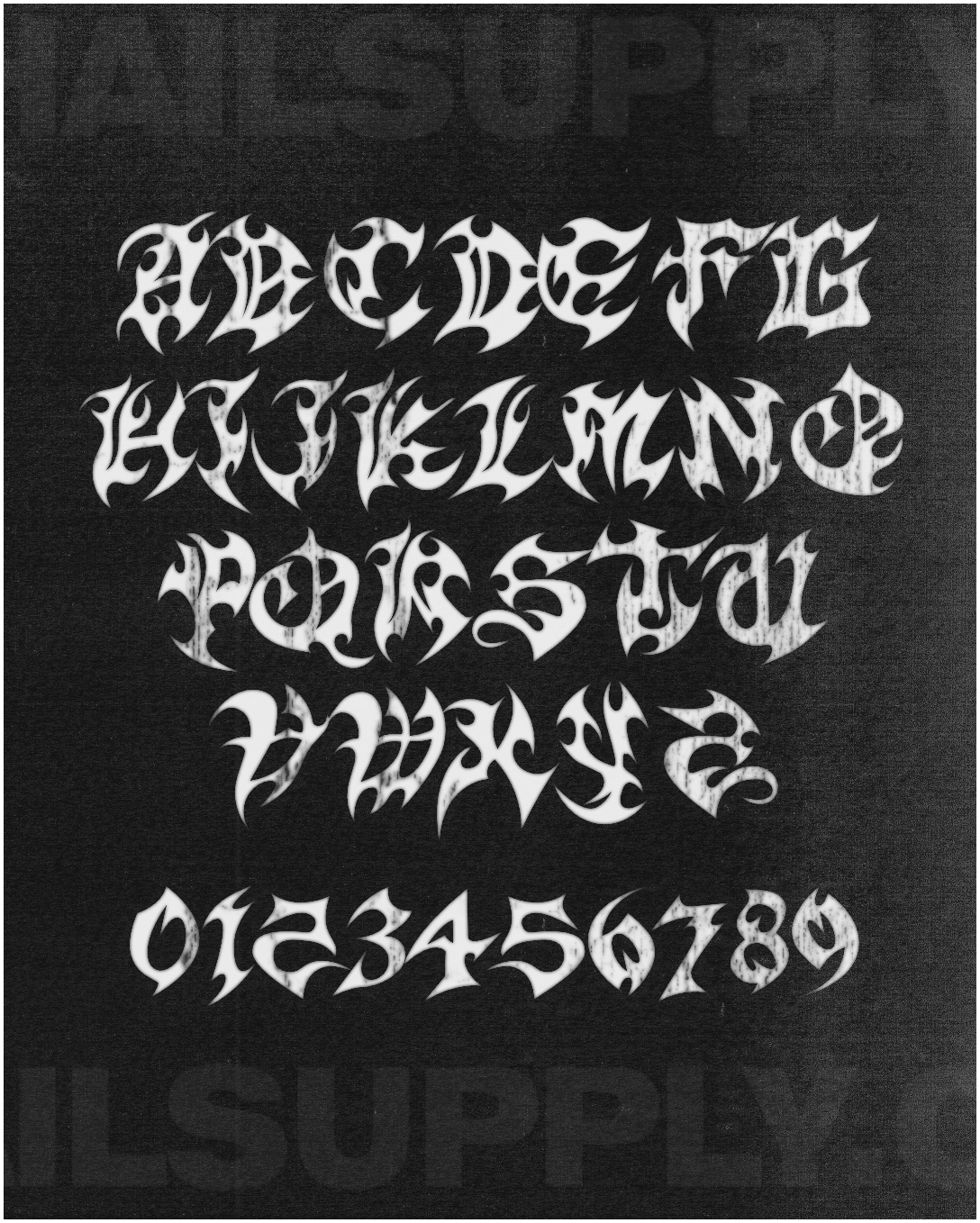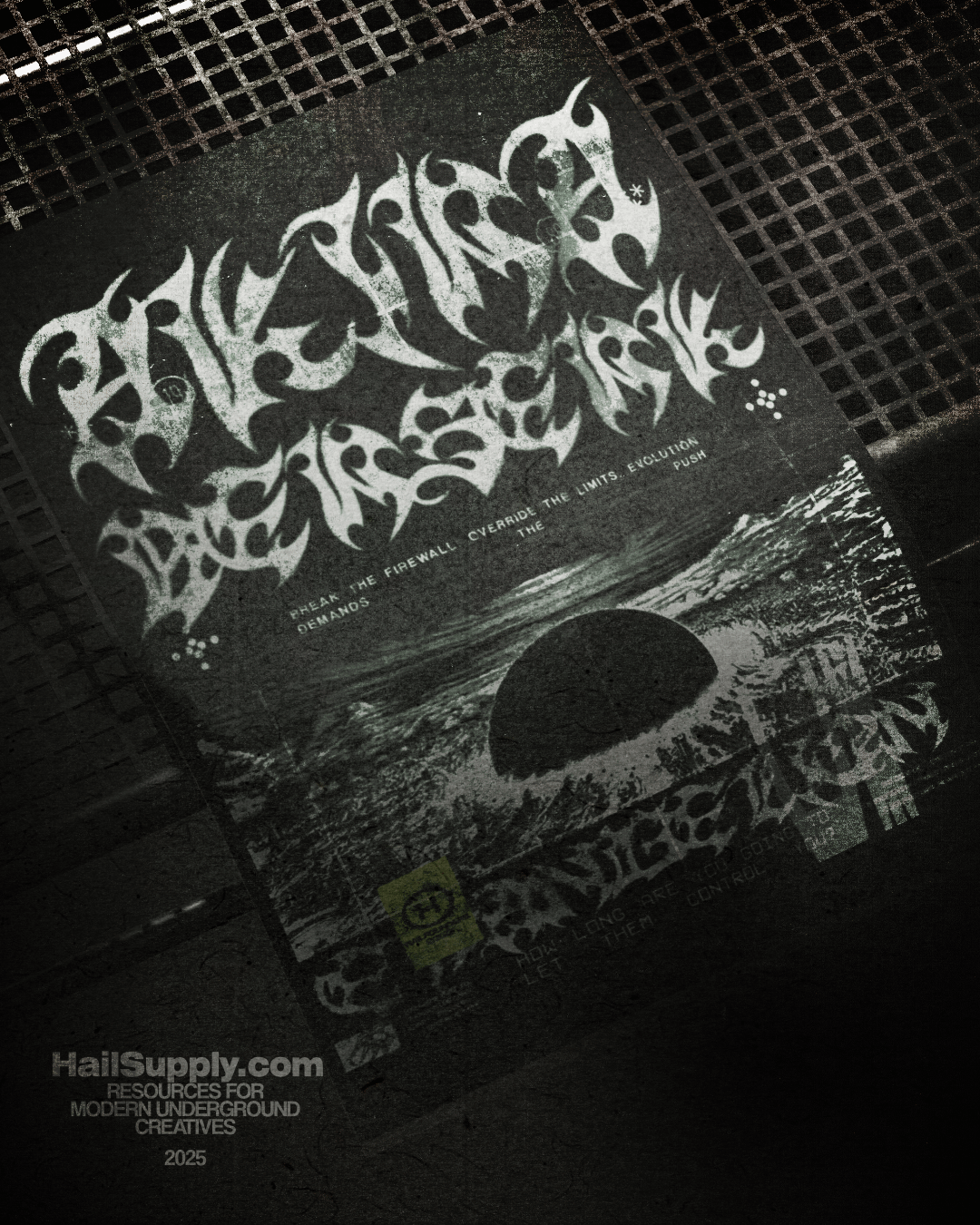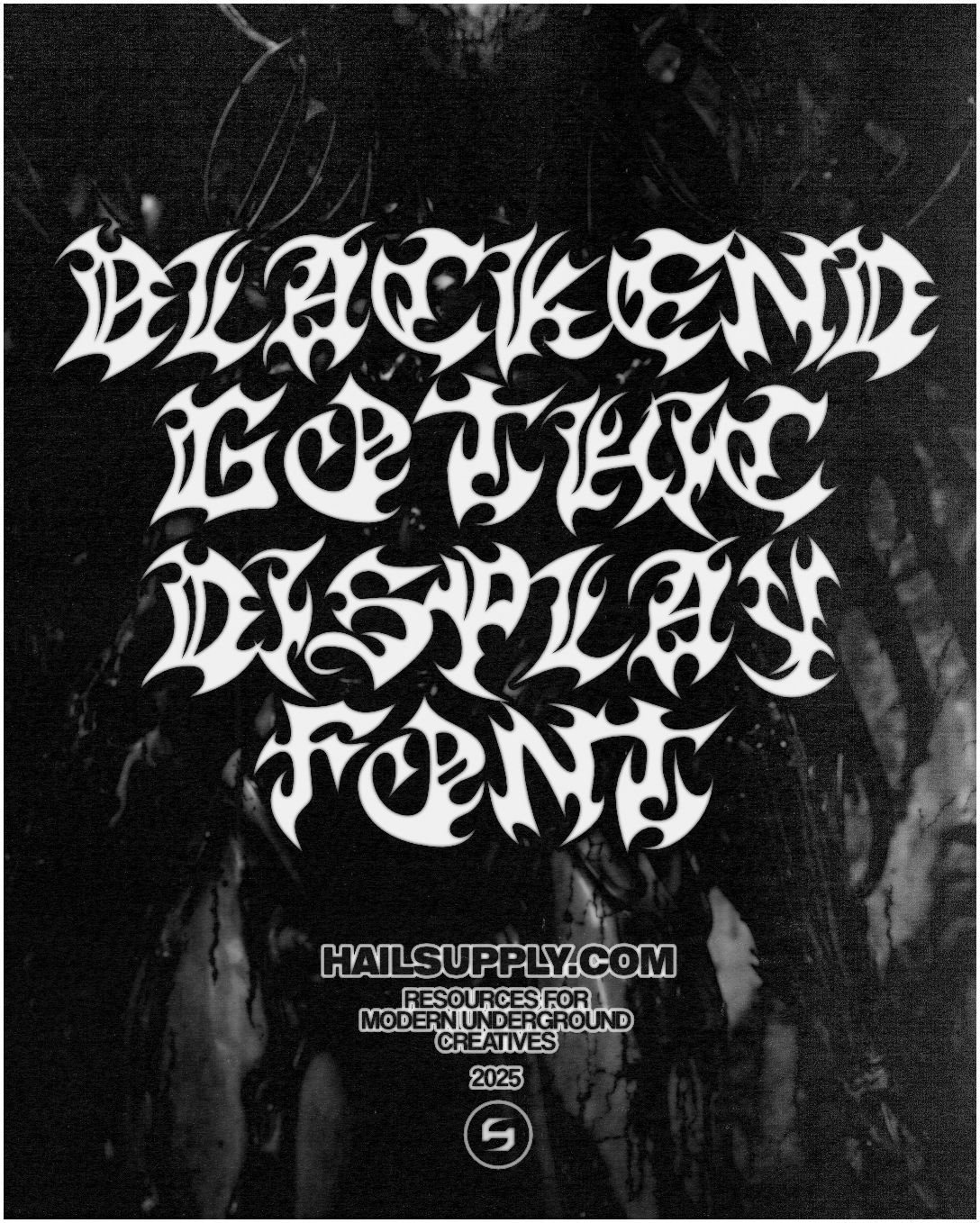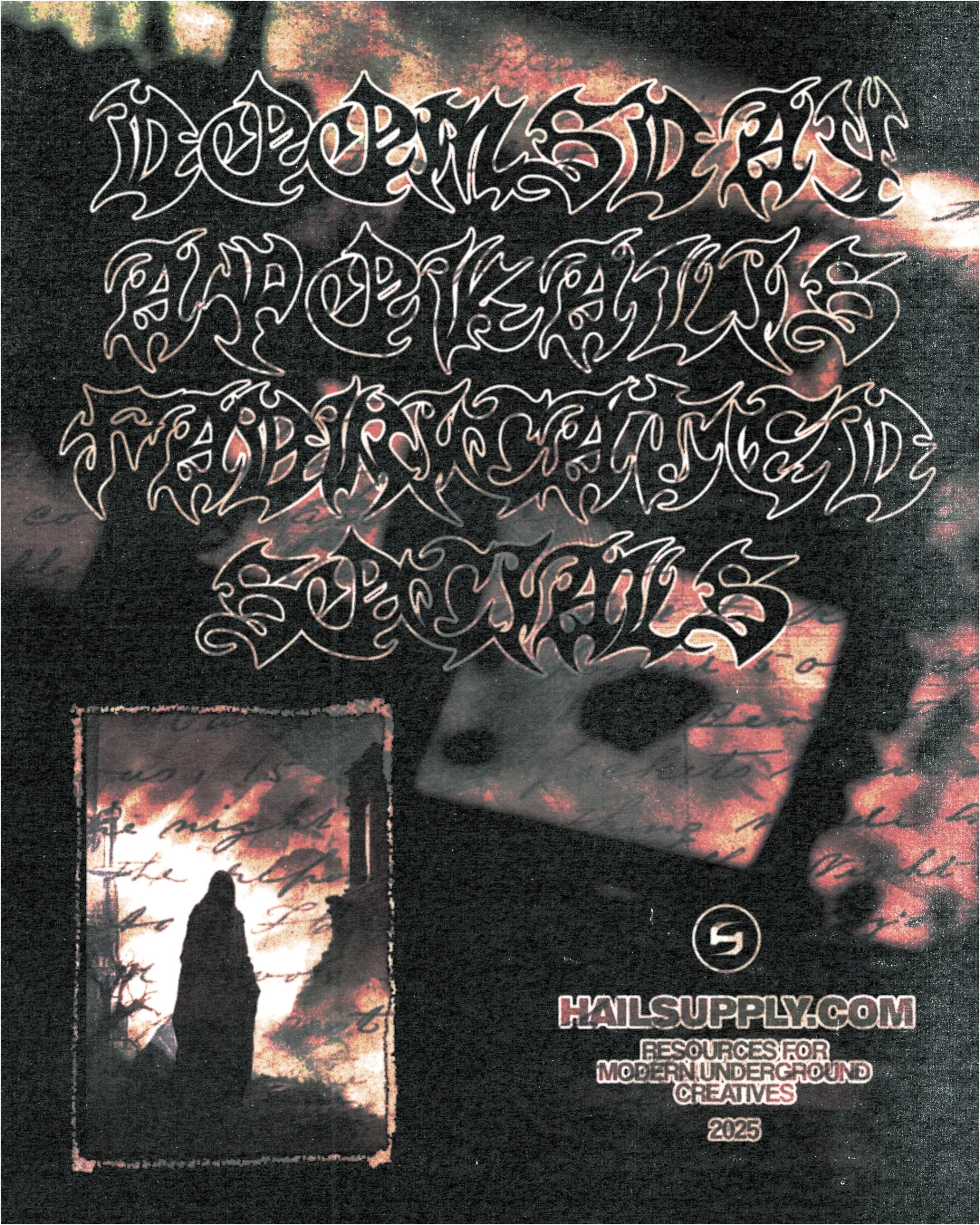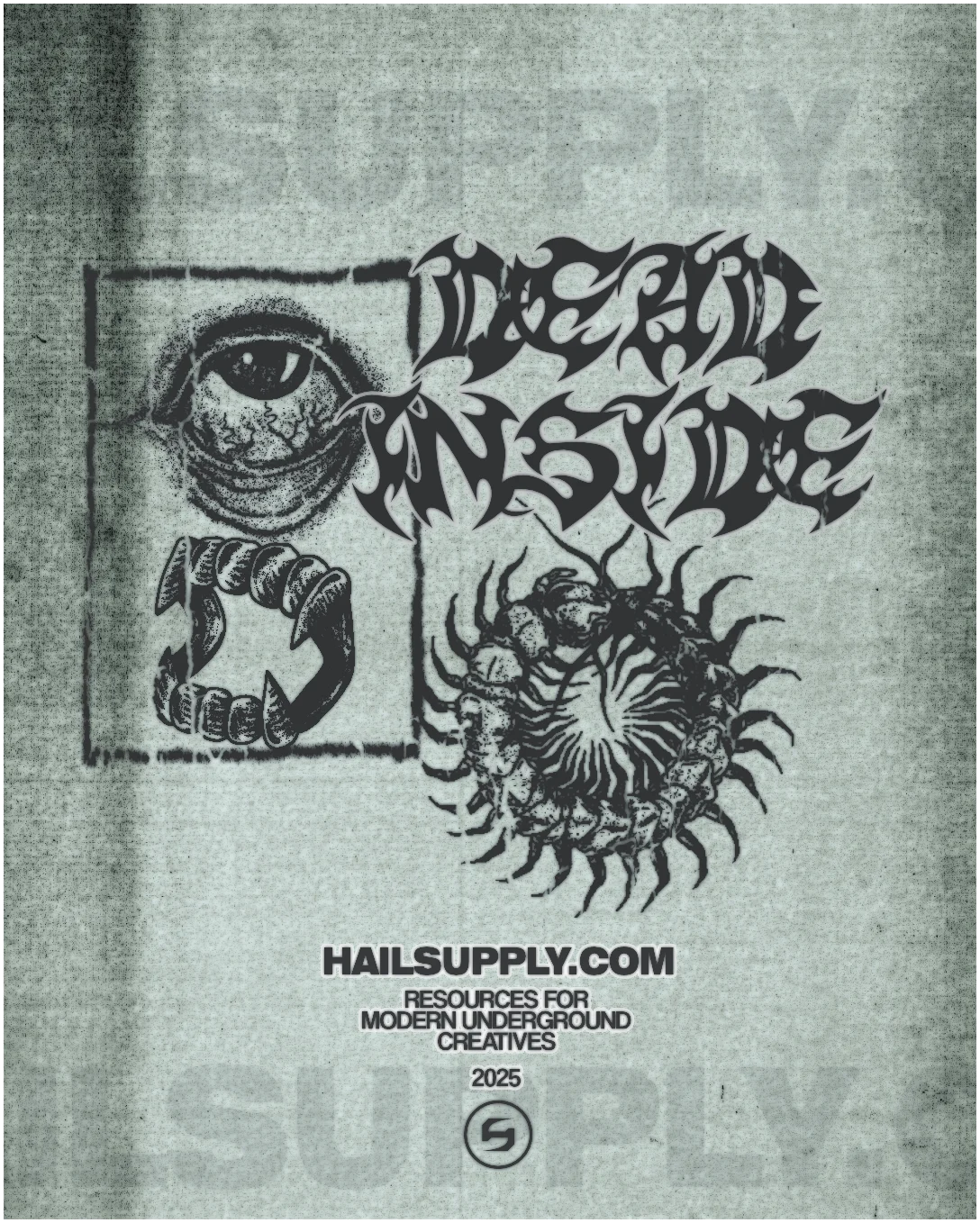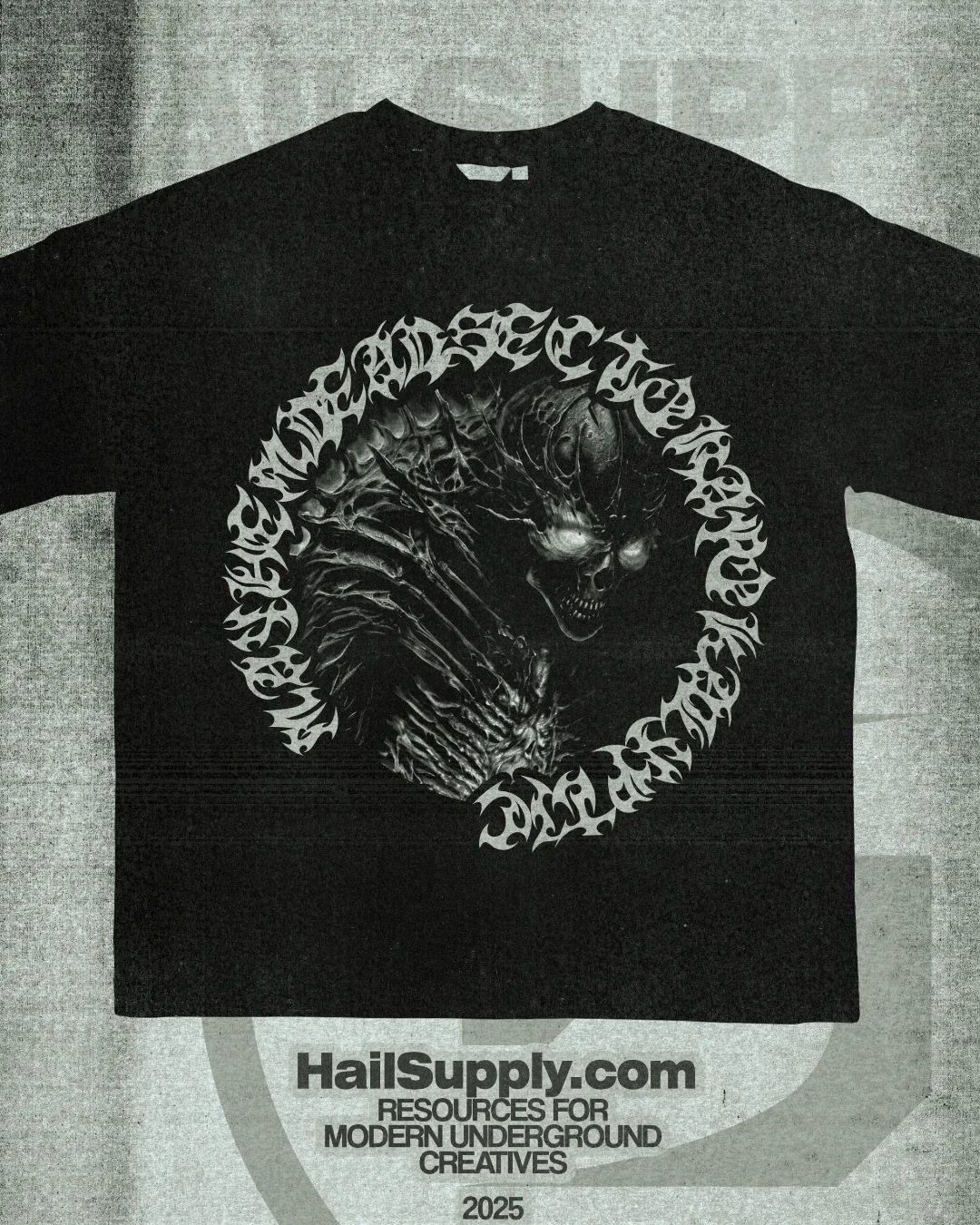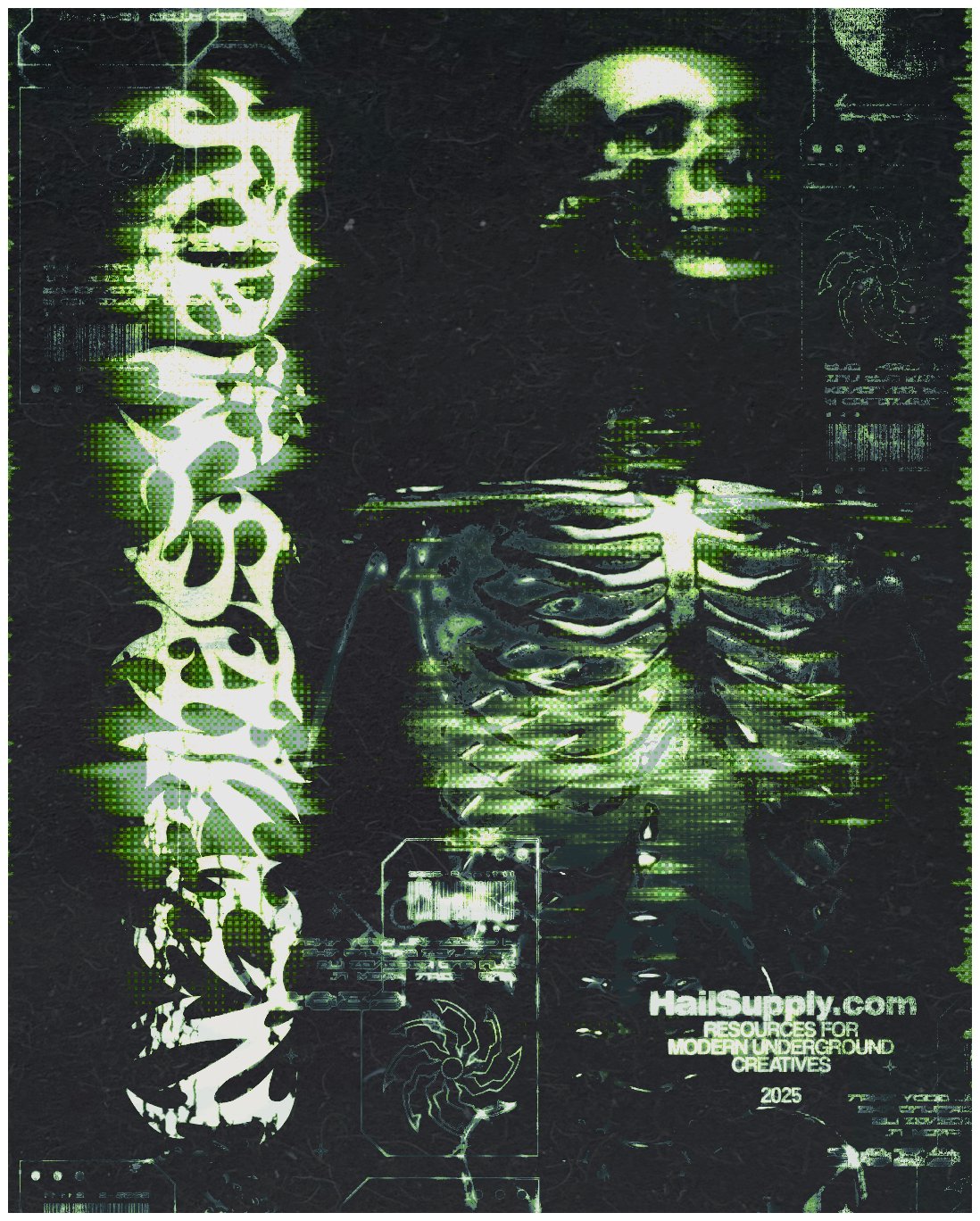
BLACKEND - DISPLAY FONT
BLACKEND – Modern Gothic Display Font
BLACKEND is a hand-drawn modern gothic display font built to elevate alternative design with a bold, uncompromising edge. Every letter carries a unique form, blending sharp gothic character with a contemporary twist—crafted to make your work stand out. With its dark yet modern vibe, BLACKEND is perfect for posters, merch, album covers, and any design that demands a striking, alternative aesthetic.
🔹 Uppercase A-Z
🔹 Numbers 0-9